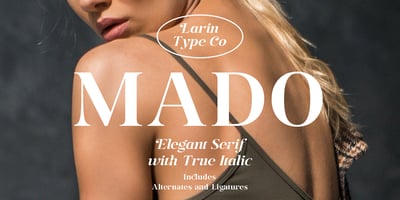
Mado
Mado font
Mado Font Family was designed by Pavel Larin and published by Larin Type Co. Mado contains 2 styles and family package options. MADO is a elegant serif font that includes two styles: regular and true Italic.This is a contrasting medium weight font and looks amazing in logos, branding, arranging wedding invitations, business cards, packaging, titles and much more, it is very readable and recognizable. This font includes alternates for Uppercase and Lowercase and ligatures for Lowercase, with them you can make your project more elegant and unique and italic style will add dynamics to your design, it also includes alternates and ligatures This font is easy to use has OpenType features.